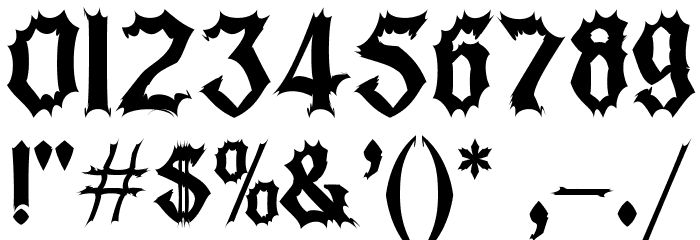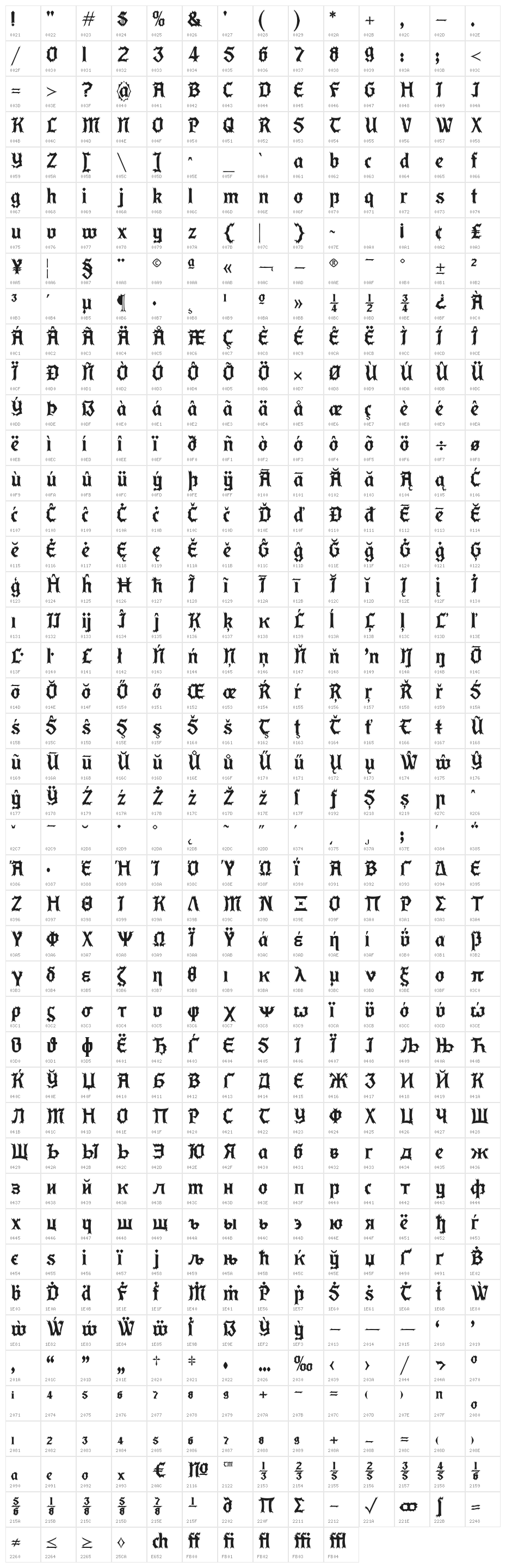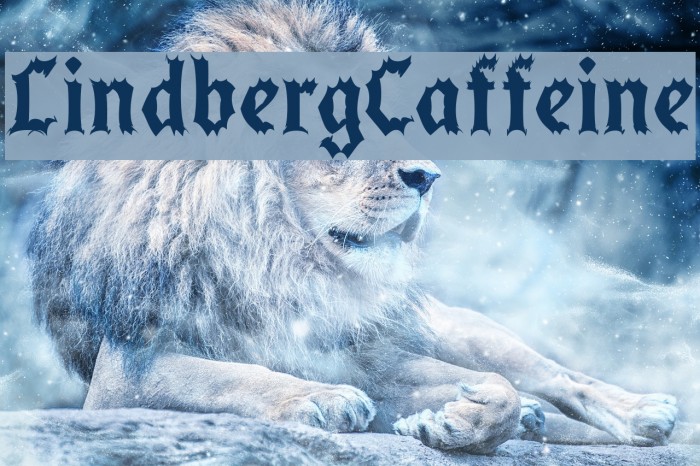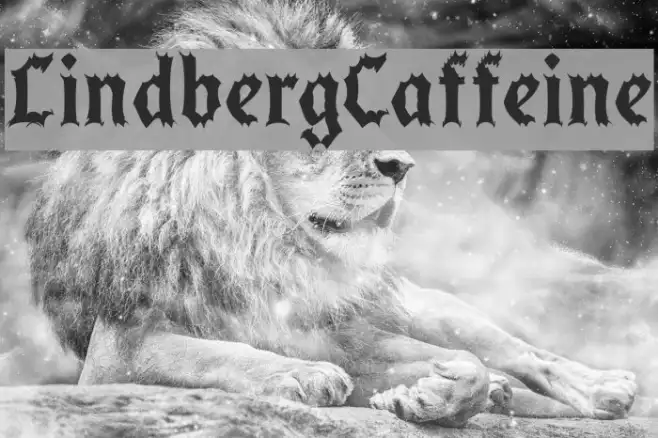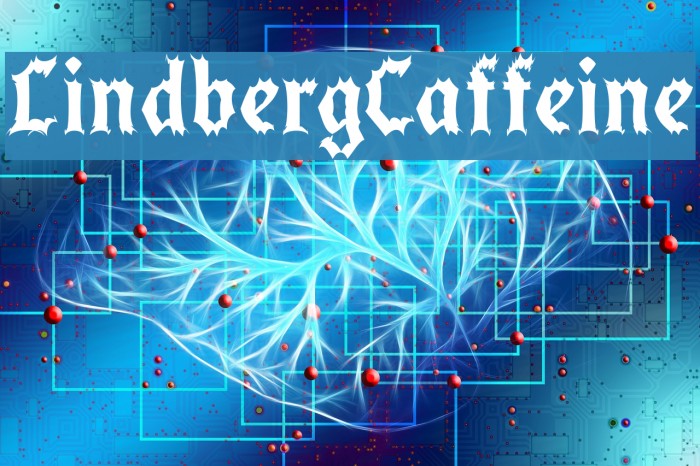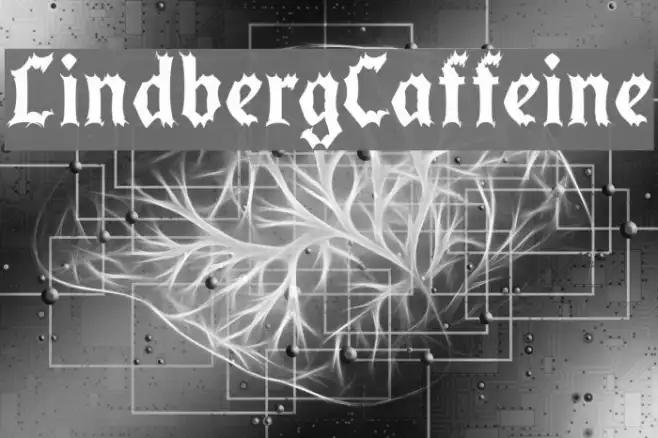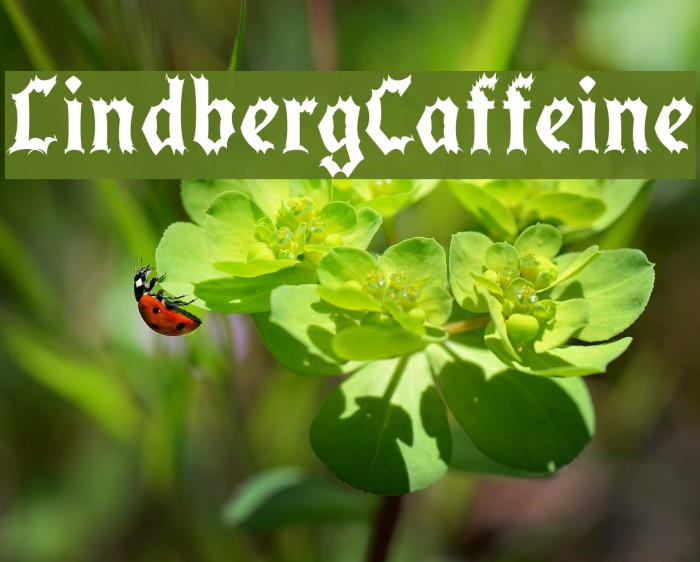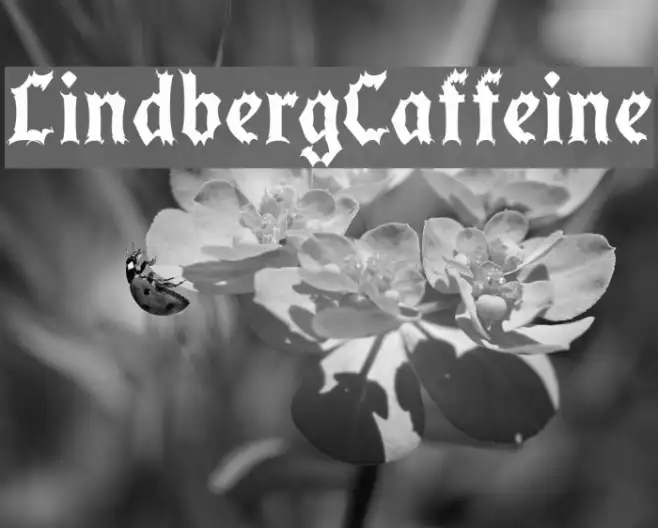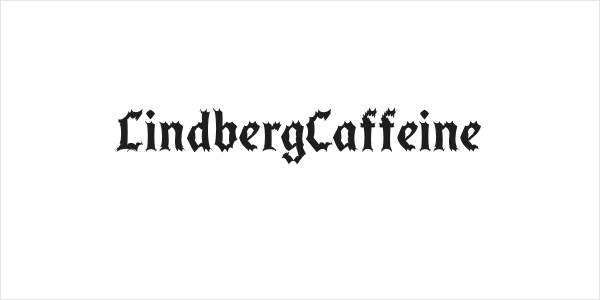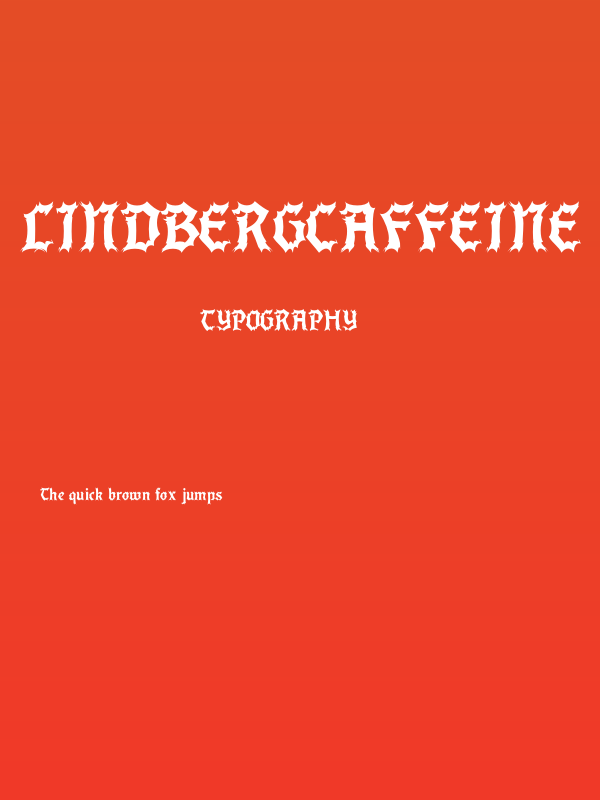
LindbergCaffeine Font
LindbergCaffeine Description
This font features a bold and dramatic style with sharp, jagged edges that give it a fierce and aggressive appearance. The characters are highly stylized, with exaggerated serifs and pointed tips that create a sense of movement and intensity. The uppercase and lowercase letters maintain a consistent aesthetic, while the numerals and special characters blend seamlessly into the overall design. The font's unique and striking appearance makes it ideal for projects that require a strong visual impact.
| Use Case | Logos, Posters, Branding |
| Proposed Projects | Perfect for horror movie posters, heavy metal band logos, Halloween-themed designs, and edgy branding materials. |